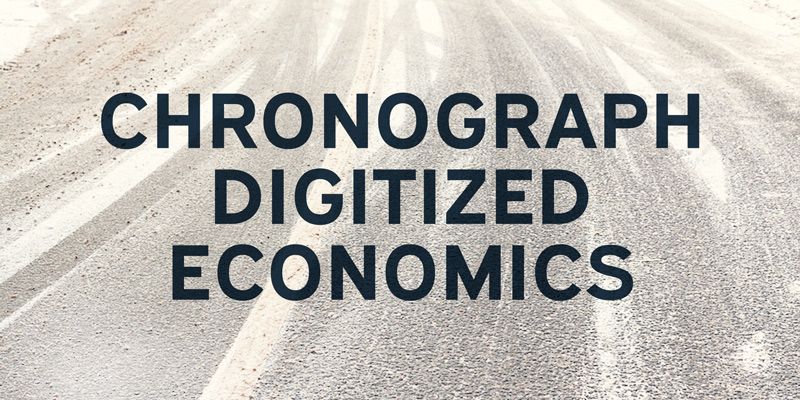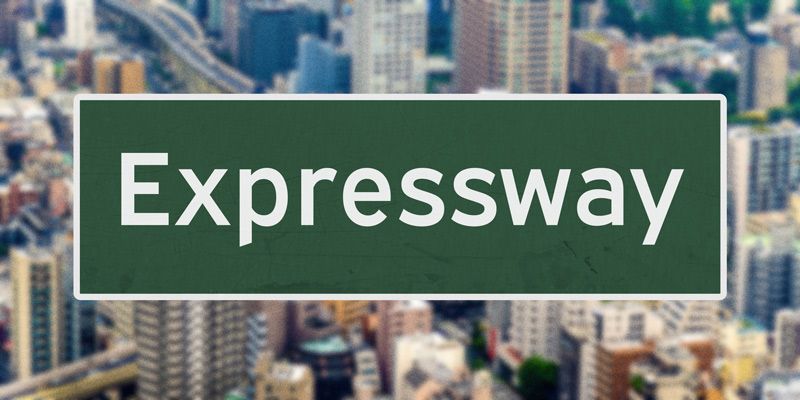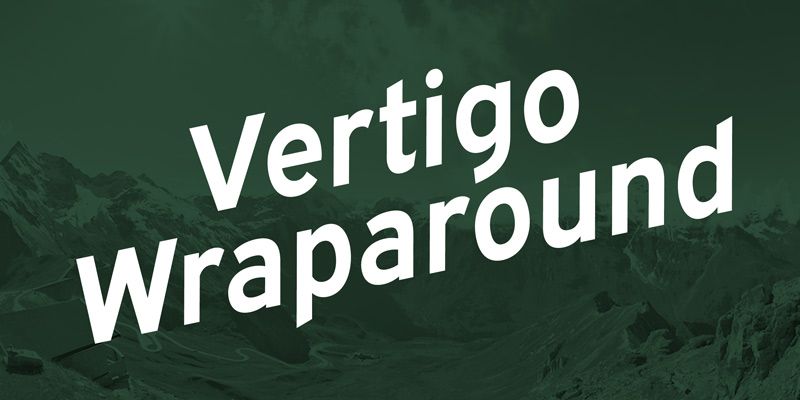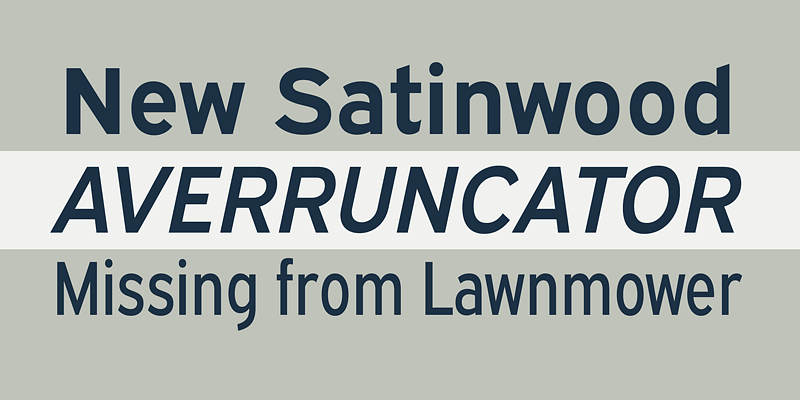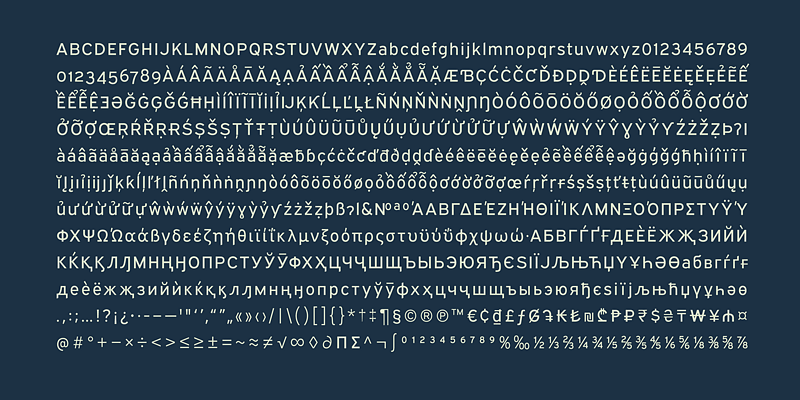
Expressway takes inspiration from the letterforms of U.S. highway signs and turns that familiar public voice into a broad sans-serif family. It brings the clarity of transportation lettering to contemporary systems that live on both signs and screens: charging stations, parking networks, fleet services, mobility hubs, and roadside information. Seven weights from ExtraLight through ExtraBold, each with an italic, let designers distinguish a destination, a heading, and supporting details without changing families. Expressway is an interpretation of highway lettering rather than a substitute for official sign standards. Use its recognizable, workmanlike forms for identities and information systems that should feel legible, mobile, and connected to the road.